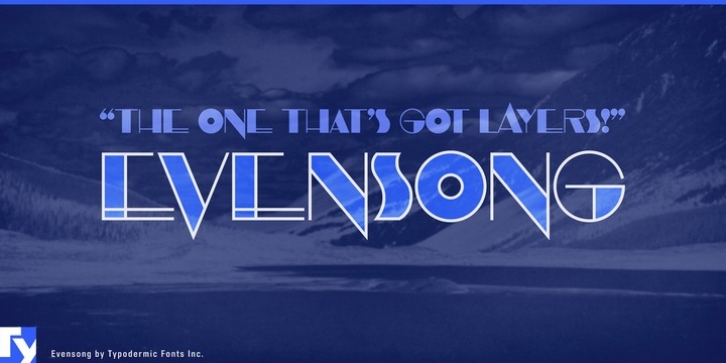
Evensong is a geometric deco typeface. You can use the Solid and Hollow styles on their own or layers of Solid and Fill. Evensong supports Greek, Vietnamese, Cyrillic, Pan-Nigerian and most Latin based languages. The desktop license for Evensong Hollow is free.